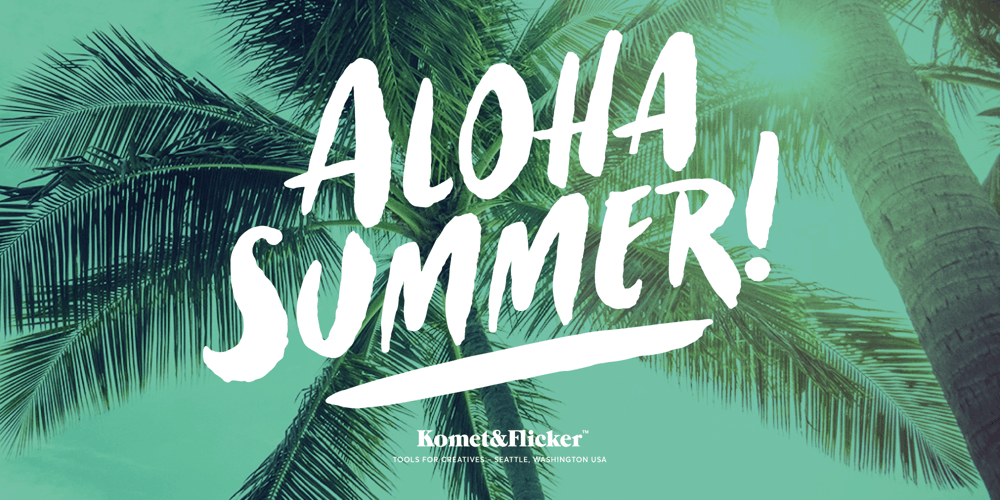
Aloha Summer Font Family was designed by David Phillips and published by Komet & Flicker. Aloha Summer contains 2 styles and family package options. GOOD VIBES ONLY!Surf’s up with this hand drawn brush font that effortlessly captures the laid-back vibe of lazy beach days and sun-kissed afternoons. Whether you’re creating beach-themed invitations, surf-inspired posters, or simply adding a touch of tropical charm to your branding, this font is your go-to choice for infusing that unmistakable beachside vibe.THIS FONT INCLUDES• Full A-Z uppercase and lowercase basic latin characters• Select Western & Central European specific characters• Set of 10 glyph connector words (of, the, and, to, by, for, at, with, or, in)• Numbers, punctuation, and select symbolsPlease note: In Illustrator, the extra custom glyphs can easily be accessed in the “Type → Glyphs” panel. In Photoshop they can be accessed through “Type → Panels → Glyphs Panel”.